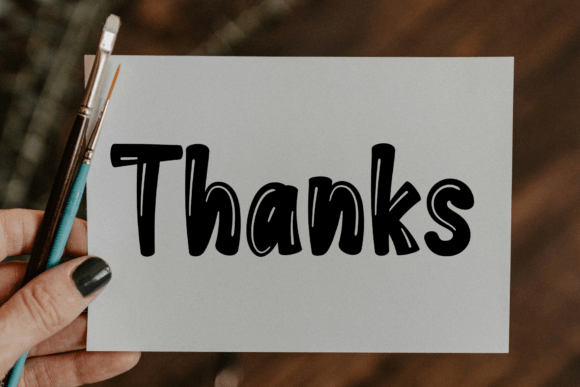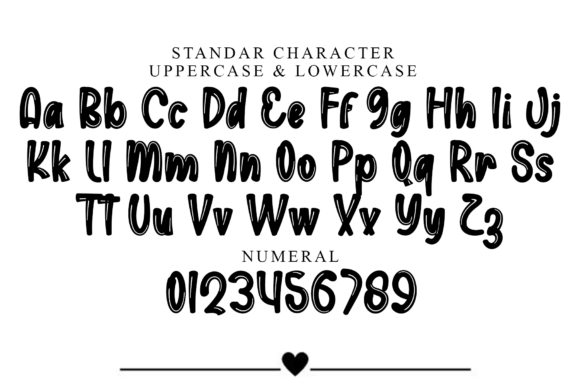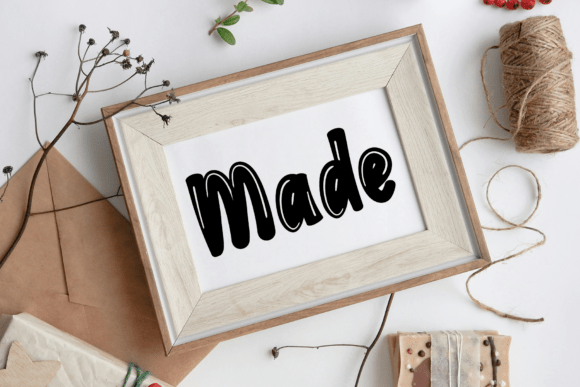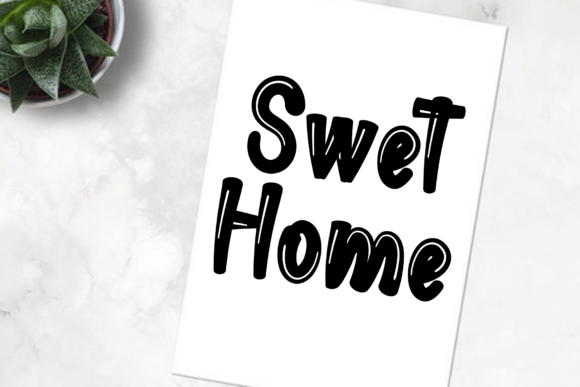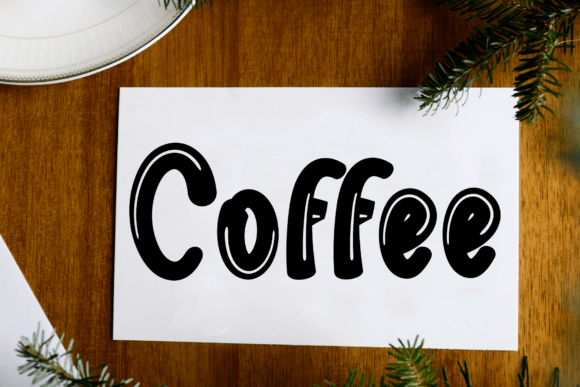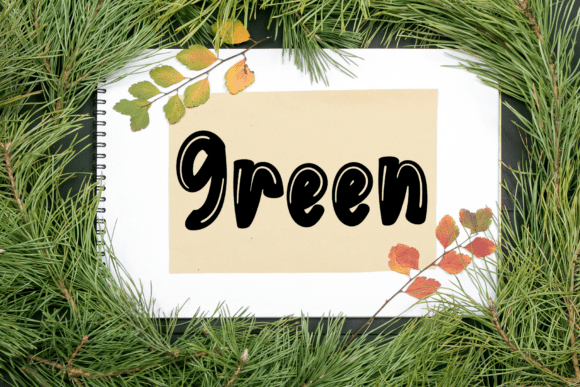
Unleashing Creativity with the Big Brush Font
Have you ever sat down with a blank canvas, a blank sheet of paper, or a blank screen, and let your imagination run wild? That’s exactly where the Big Brush Font comes in – to help you bring your creative ideas to life. This charming font is designed to add a touch of warmth and friendliness to any design, making it perfect for personal projects, invitations, and social media graphics.
The Big Brush Font’s round, playful strokes create a relaxed and approachable feel that’s hard to resist. Its hand-drawn aesthetic is not only fun but also unique, making it a valuable addition to any designer’s toolkit. Whether you’re a seasoned pro or a creative beginner, the Big Brush Font is sure to help you stand out and make a lasting impression.
Big Brush Font Key Features
- Unique Characteristics: Big Brush Font features a bold, expressive style with thick lines and vibrant brushstrokes, ideal for creating eye-catching headlines and titles.
Designer Review: Big Brush Font
I recently had the chance to work with the Big Brush Font, and I have to say it’s a mixed bag. On the one hand, it’s got some great qualities that make it shine.
- ✨ Unique and bold style that’s perfect for making a statement: Big Brush Font is not for the faint of heart. It’s a font that’s designed to grab attention and draw the eye.
- ✨ Highly customizable: From the boldness of the lines to the color palette, you have a lot of control over how this font looks and feels.
However, there are some limitations that might hold you back.
- ⚠️ Limited legibility: While the font is great for headings and titles, it can be a bit tricky to read in body text. The bold lines can make it feel cluttered and overwhelming.
- ⚠️ Not ideal for small text: As with any bold font, Big Brush Font is best used in larger sizes. It can be difficult to read when it’s shrunk down too small.
Overall, I’d say Big Brush Font is a great choice if you’re looking for something unique and attention-grabbing. Just be mindful of the limitations and use it judiciously. With a little care, it can be a real showstopper.
Big Brush Font is ideal for creating eye-catching headings, titles, and logos. It’s also great for adding a touch of personality to social media graphics, flyers, and other marketing materials. Experiment with different font sizes and colors to create a unique look.